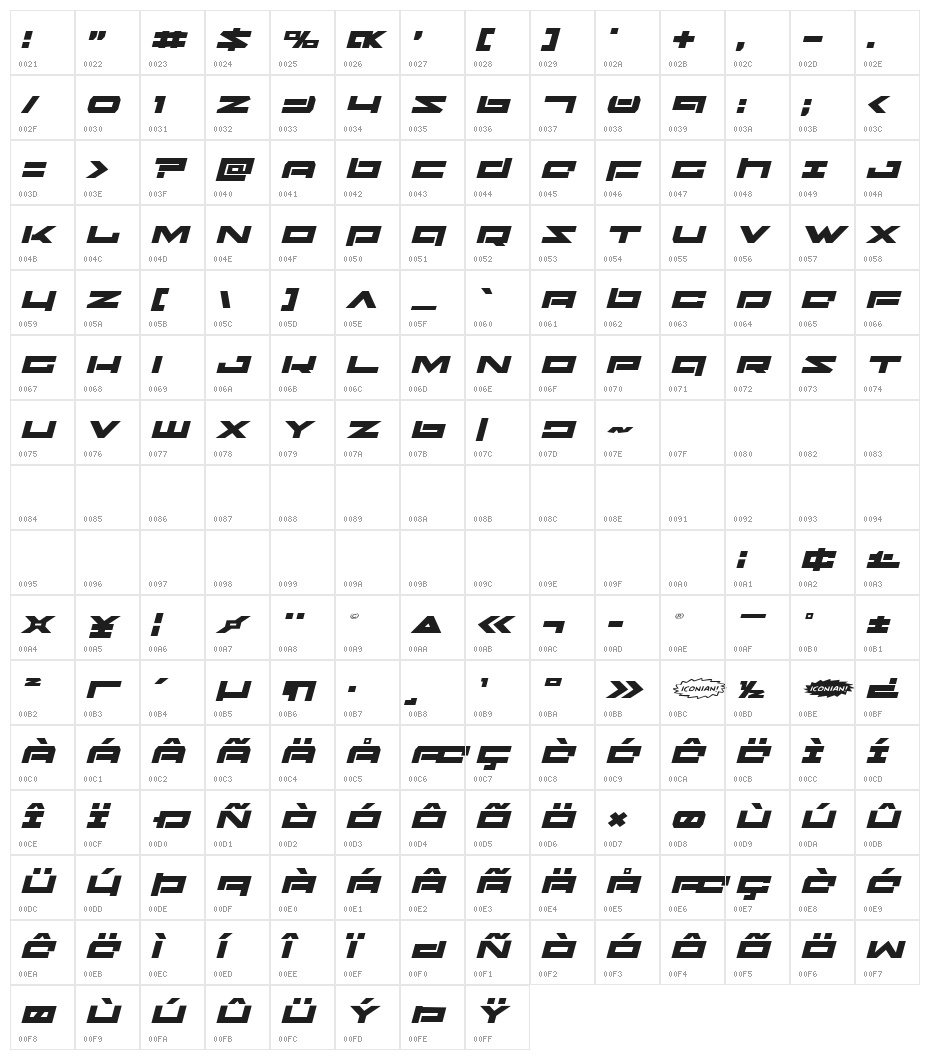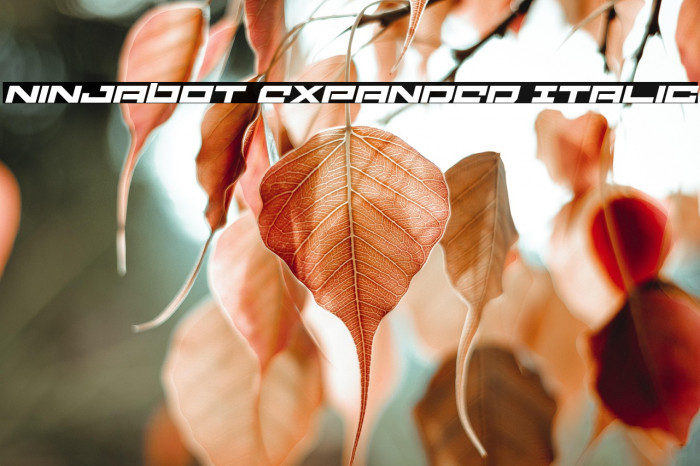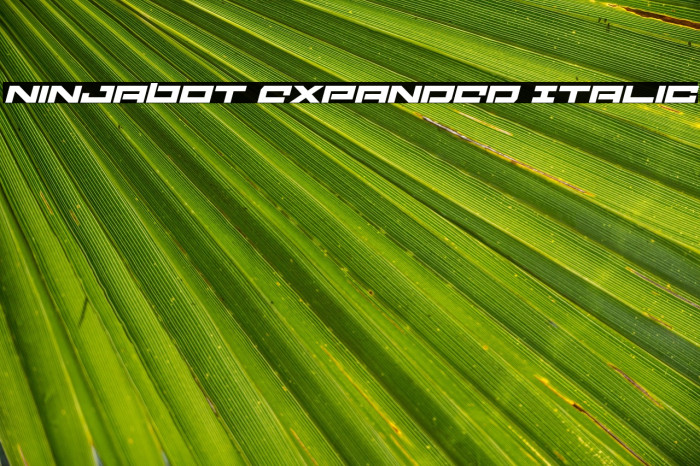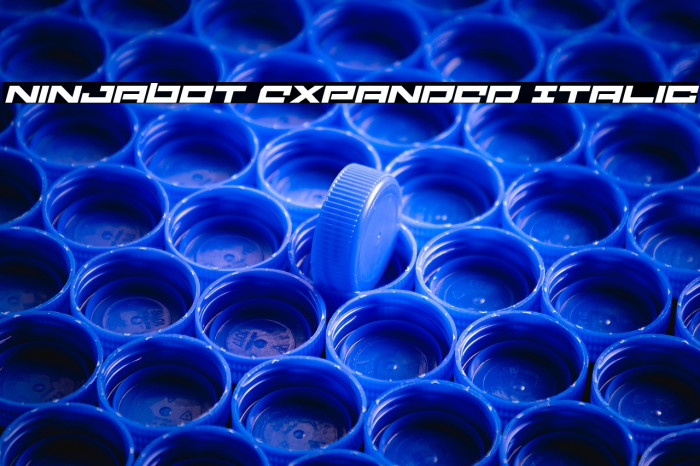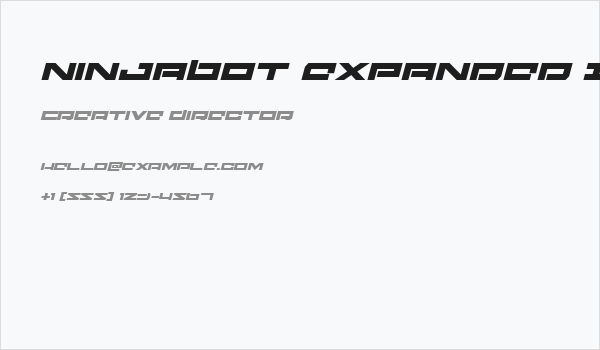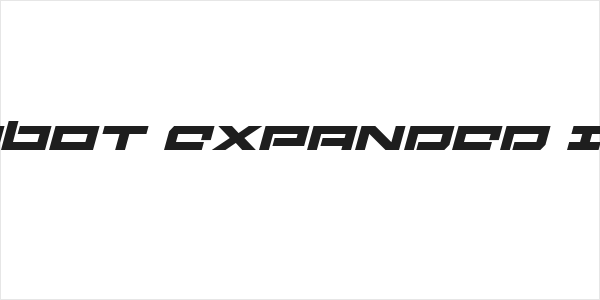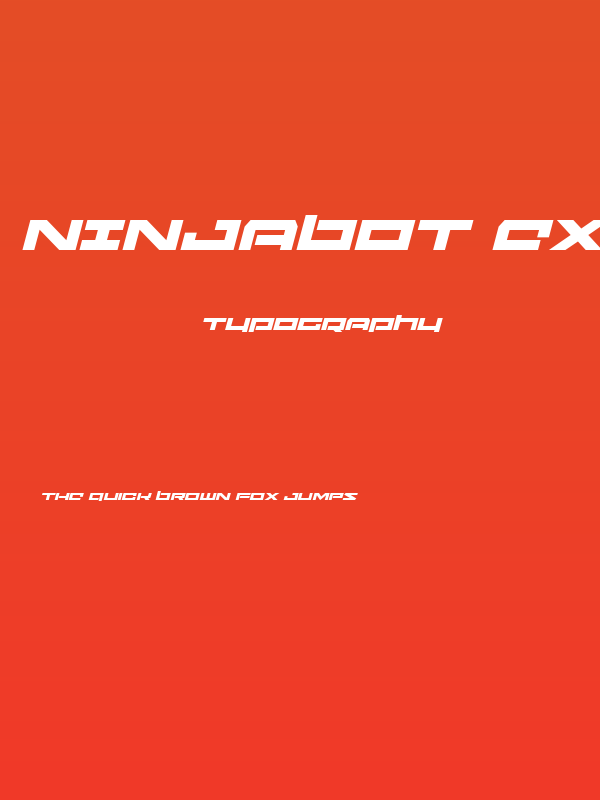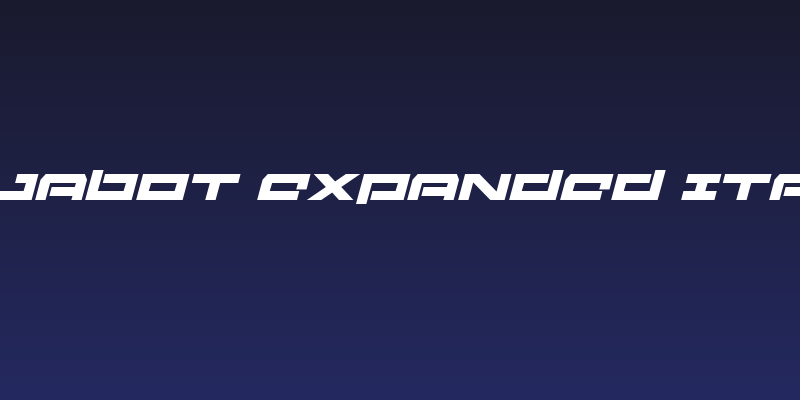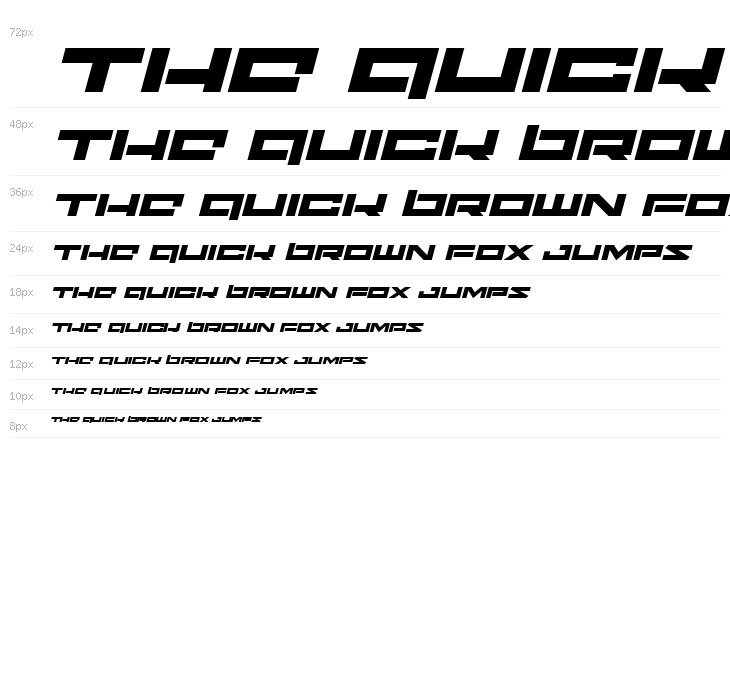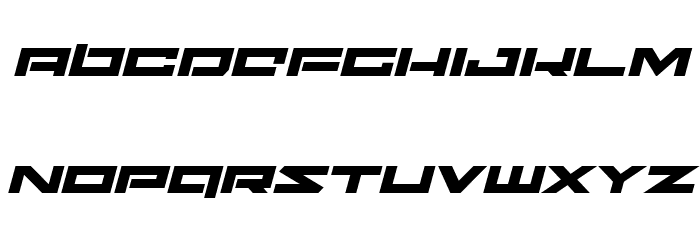
Ninjabot Expanded Italic Font
Ninjabot Expanded Italic Description
This font features a bold and dynamic design with an italicized slant, giving it a futuristic and energetic appearance. The characters are expanded, providing a sense of power and movement. The angular and geometric shapes of the letters contribute to a modern and tech-inspired aesthetic. The font maintains a consistent stroke thickness, offering a medium contrast that enhances readability while preserving its distinctive style. Its unique character shapes make it suitable for projects that require a strong visual impact.
| Use Case | Logos, Headlines |
| Proposed Projects | Ideal for technology branding, video game titles, sci-fi movie posters, and sports team logos. |